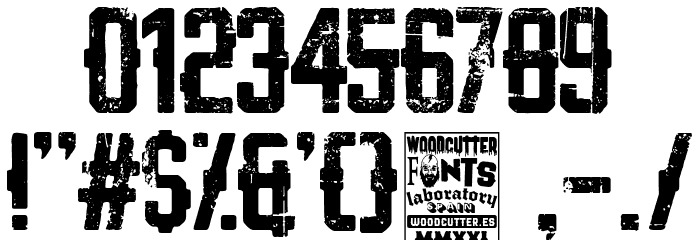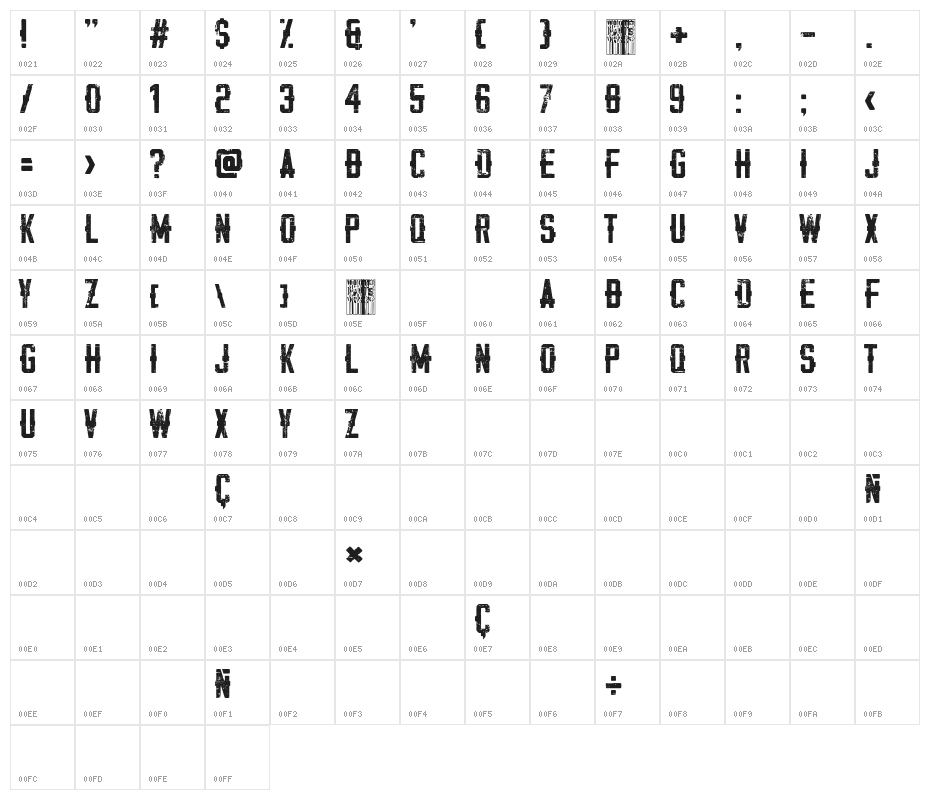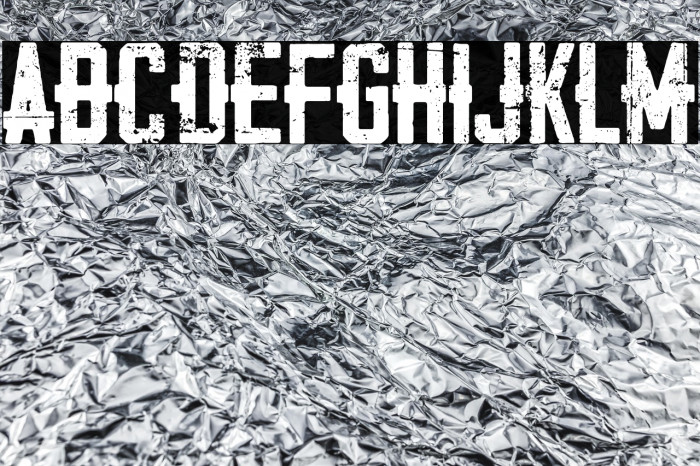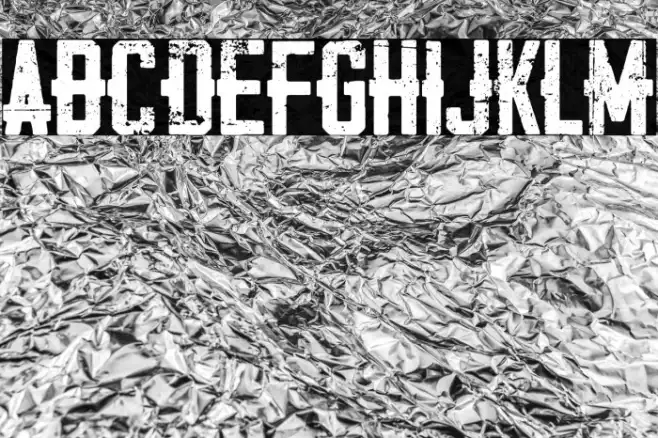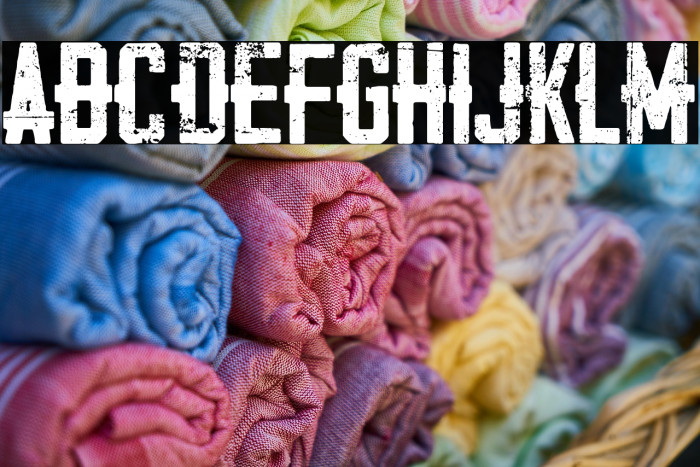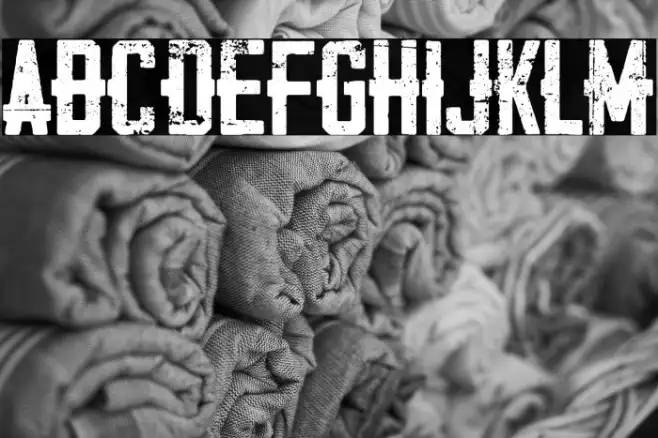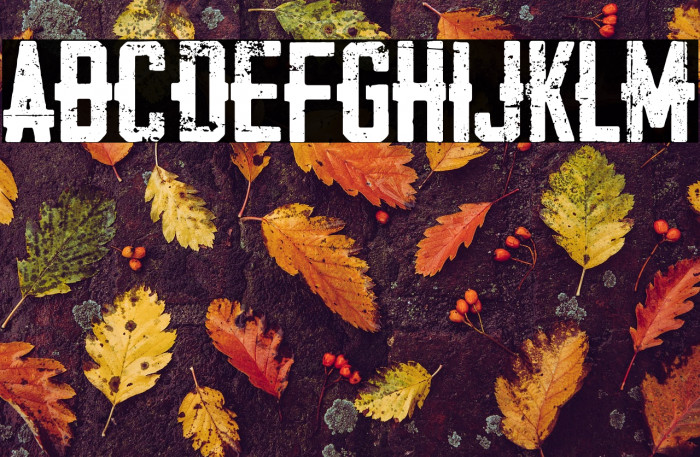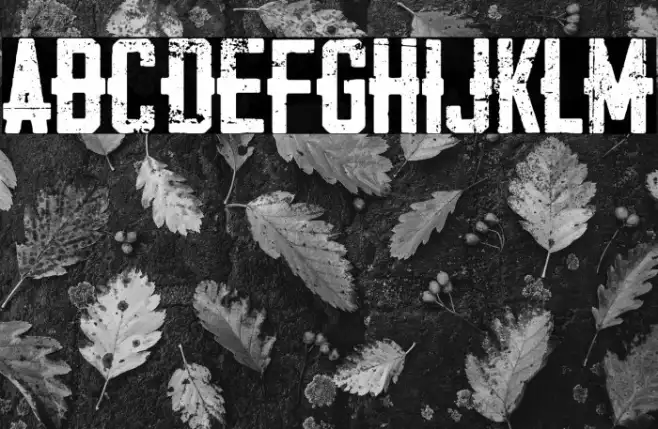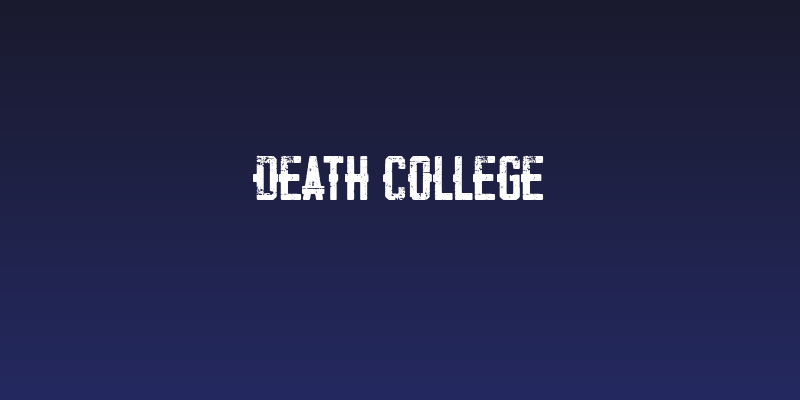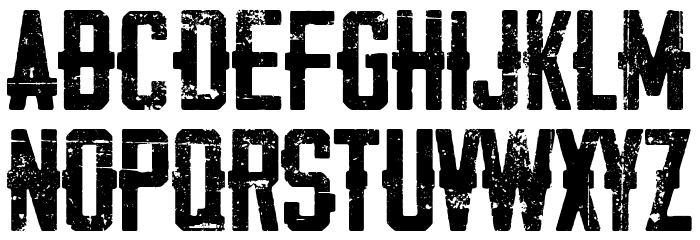
Death College Font
Death College Description
This font features a bold, distressed style with a gritty texture that gives it a rugged, worn appearance. The characters are uppercase and have a blocky, robust structure, making them stand out with a strong presence. The distressed effect varies across the characters, adding a dynamic and edgy feel. The numbers and special characters maintain the same bold and textured style, ensuring consistency throughout the font. This design is ideal for projects that require a bold statement or a vintage, industrial look.
| Overall Style | Vintage, Industrial |
| Proposed Projects | Ideal for posters, album covers, branding for edgy or vintage-themed products, and any design requiring a bold, impactful statement. |